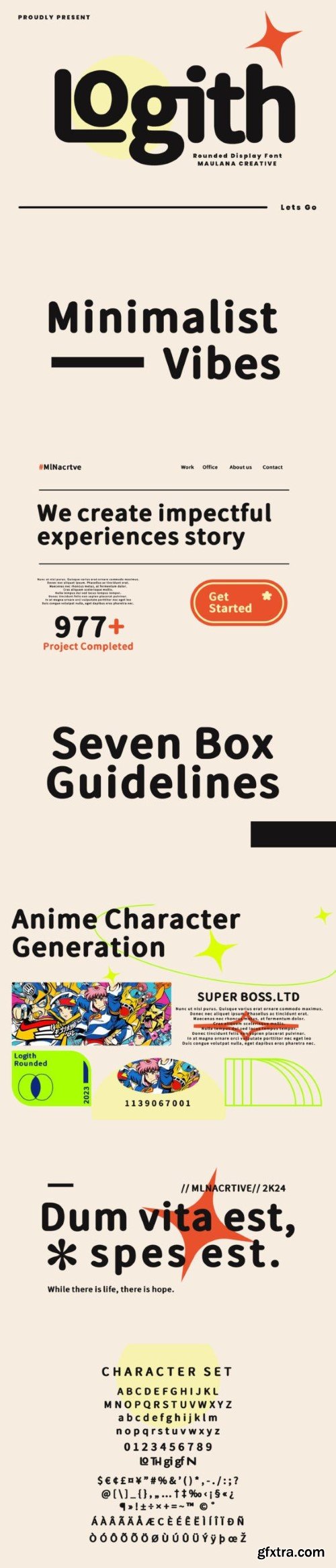
Logith is a clean and modern rounded sans-serif font that’s perfect for making your text look friendly and easy to read. Its smooth curves and clear design make it great for headlines and display purposes.